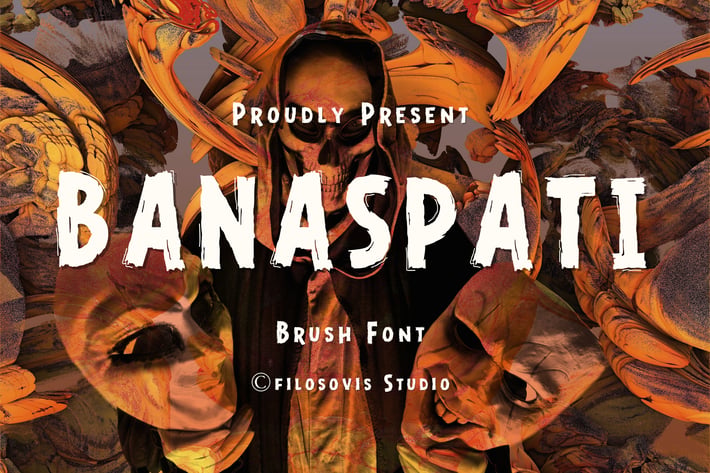
Banaspati | Brush Font
Description
Banaspati is a brush typeface abundant in organic, coarse, dry brushstrokes, with rapid, sharp hand movements. Banaspati is suitable for a wide range of applications, including branding initiatives, product packaging, retail, and promotional materials. You can write it using a combination of capital and lowercase letters to make it appear as though you wrote it yourself.